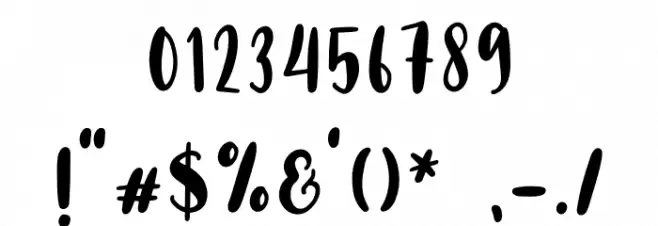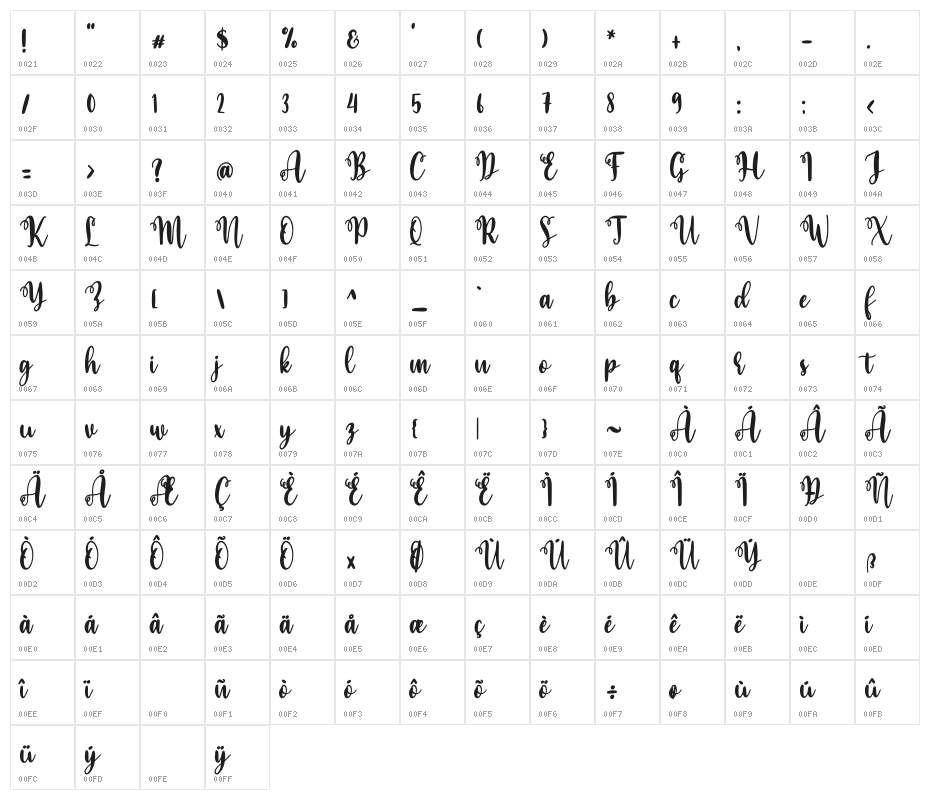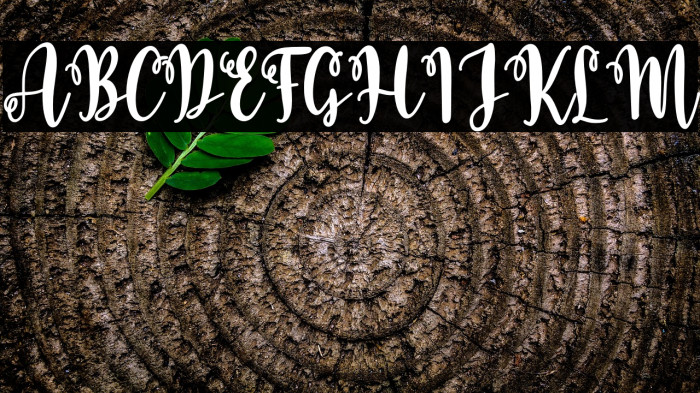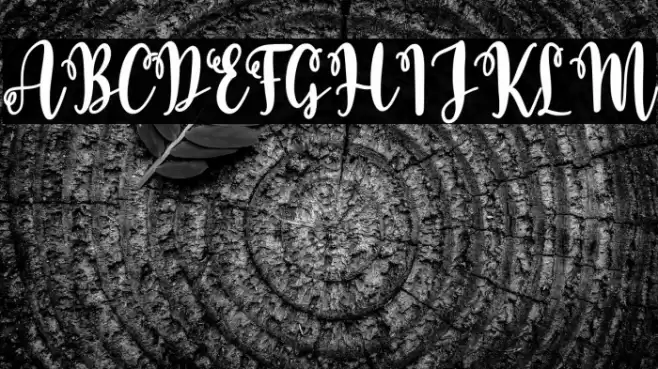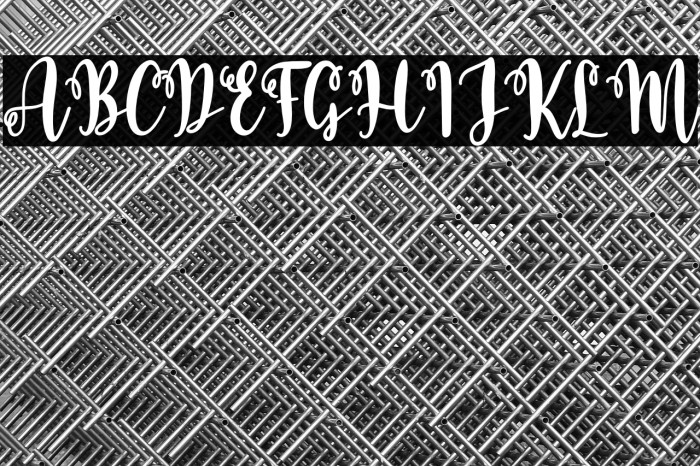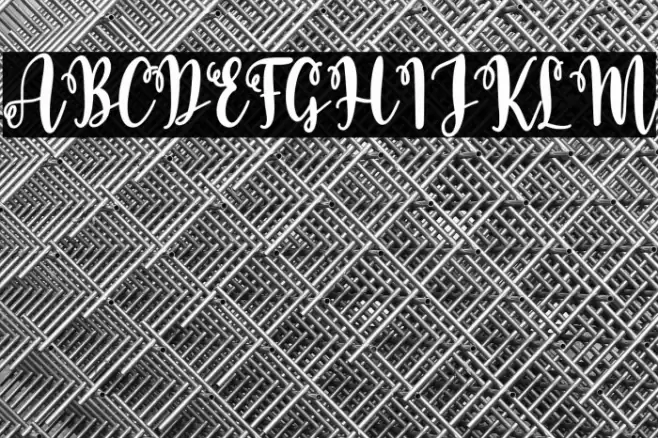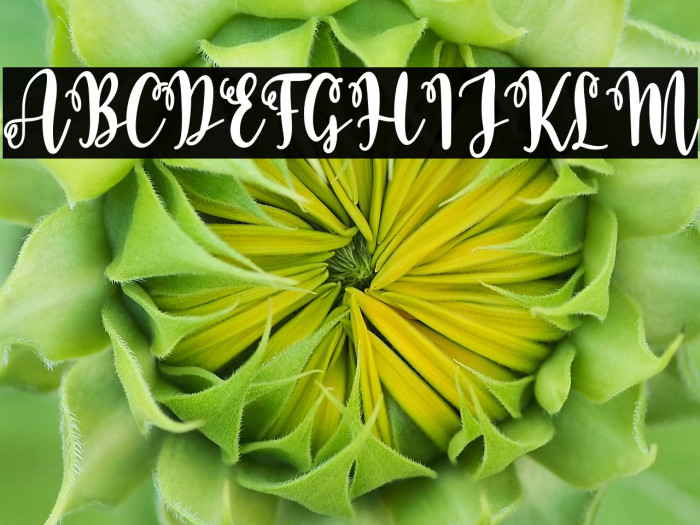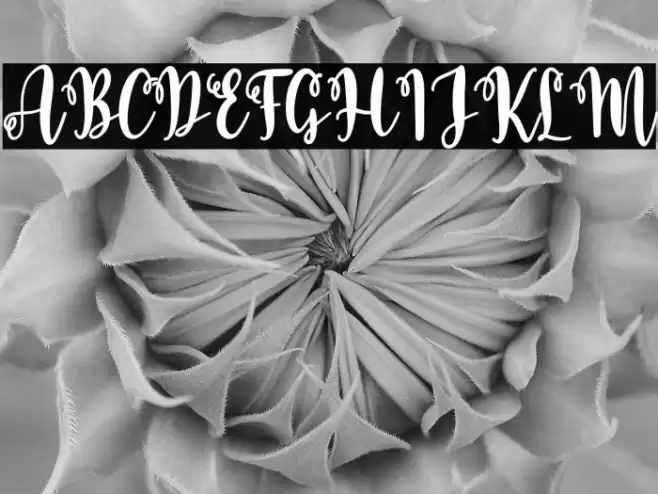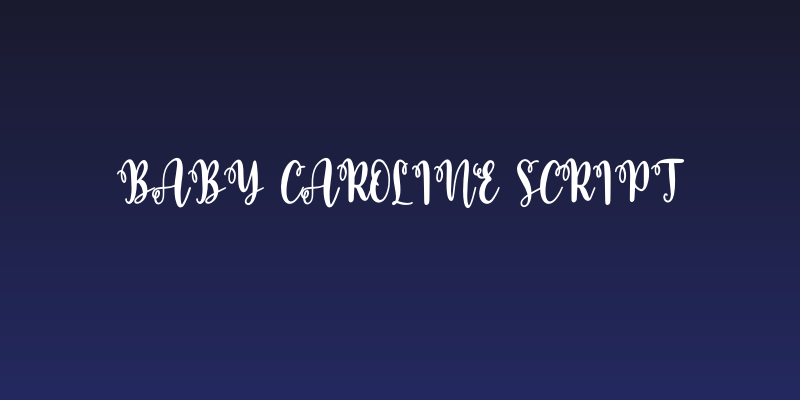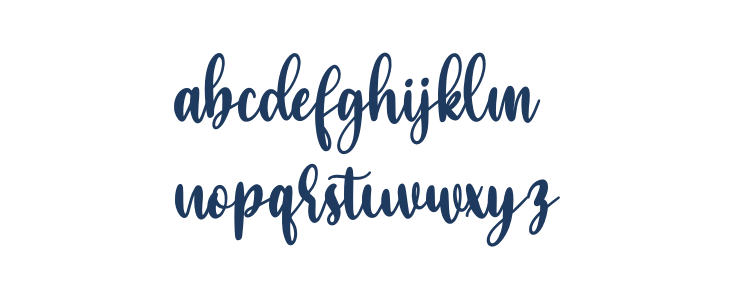
Baby Caroline Script Font
Baby Caroline Script Description
This font exudes a playful and whimsical charm, characterized by its flowing script style and decorative flourishes. The uppercase letters are adorned with elegant loops and swirls, adding a touch of sophistication and creativity. The lowercase letters maintain a consistent flow, with smooth curves and a slightly informal appearance. The numerals are bold and clear, ensuring readability while maintaining the font's overall artistic flair. Special characters are designed with the same attention to detail, making them a perfect match for the alphabetic characters. This font is ideal for projects that require a personal and artistic touch, such as invitations, greeting cards, and branding materials.
| Proposed Projects | Ideal for invitations, greeting cards, branding materials, and artistic projects. |